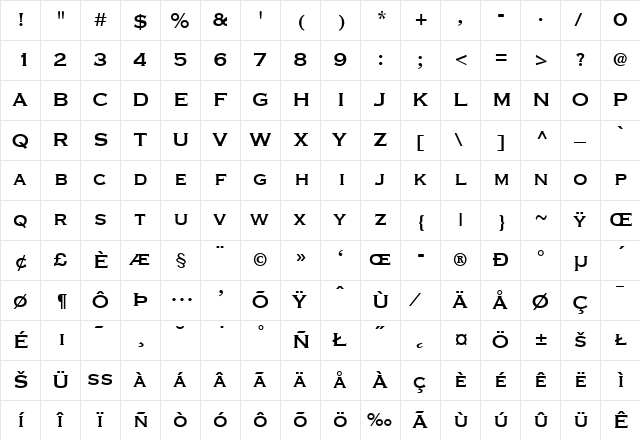
Copperplate-ThirtyOneBC Regular
Design Context for Copperplate-ThirtyOneBC Typeface
Copperplate-ThirtyOneBC is a composed and adaptable typeface that performs quietly and consistently across a wide range of design contexts.